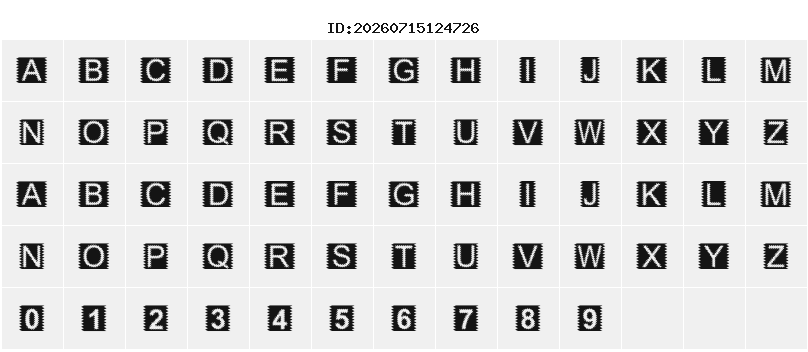
• Font Name: Zacken
• Full Font Name: Zacken Normal
• Copyright: designed by Dieter Schumacher © 1998
About Zacken.ttf
Zacken.ttf is a modern, elegant sans-serif font designed for ultimate readability and visual harmony. Perfect for branding, headlines, web design, and print materials.